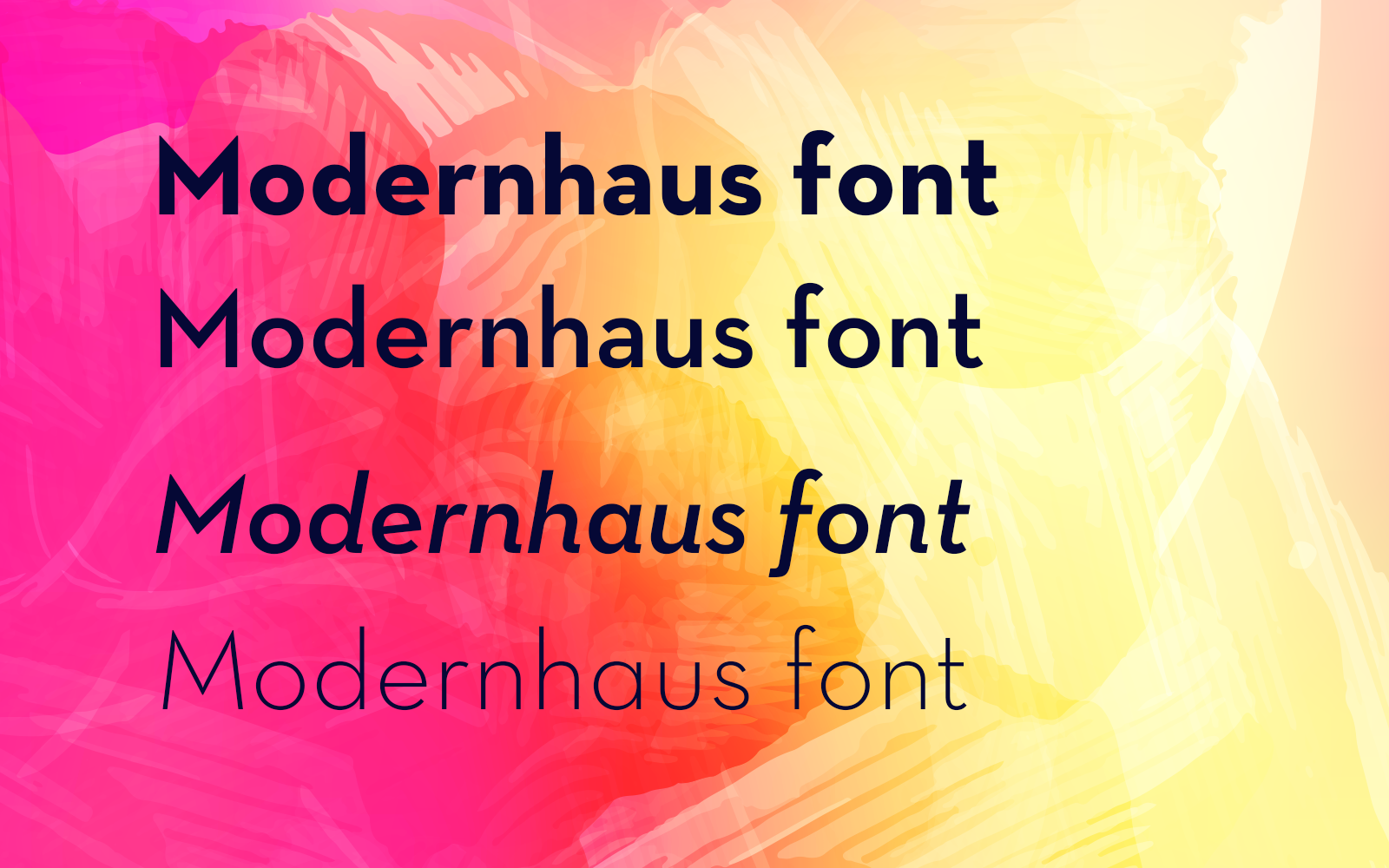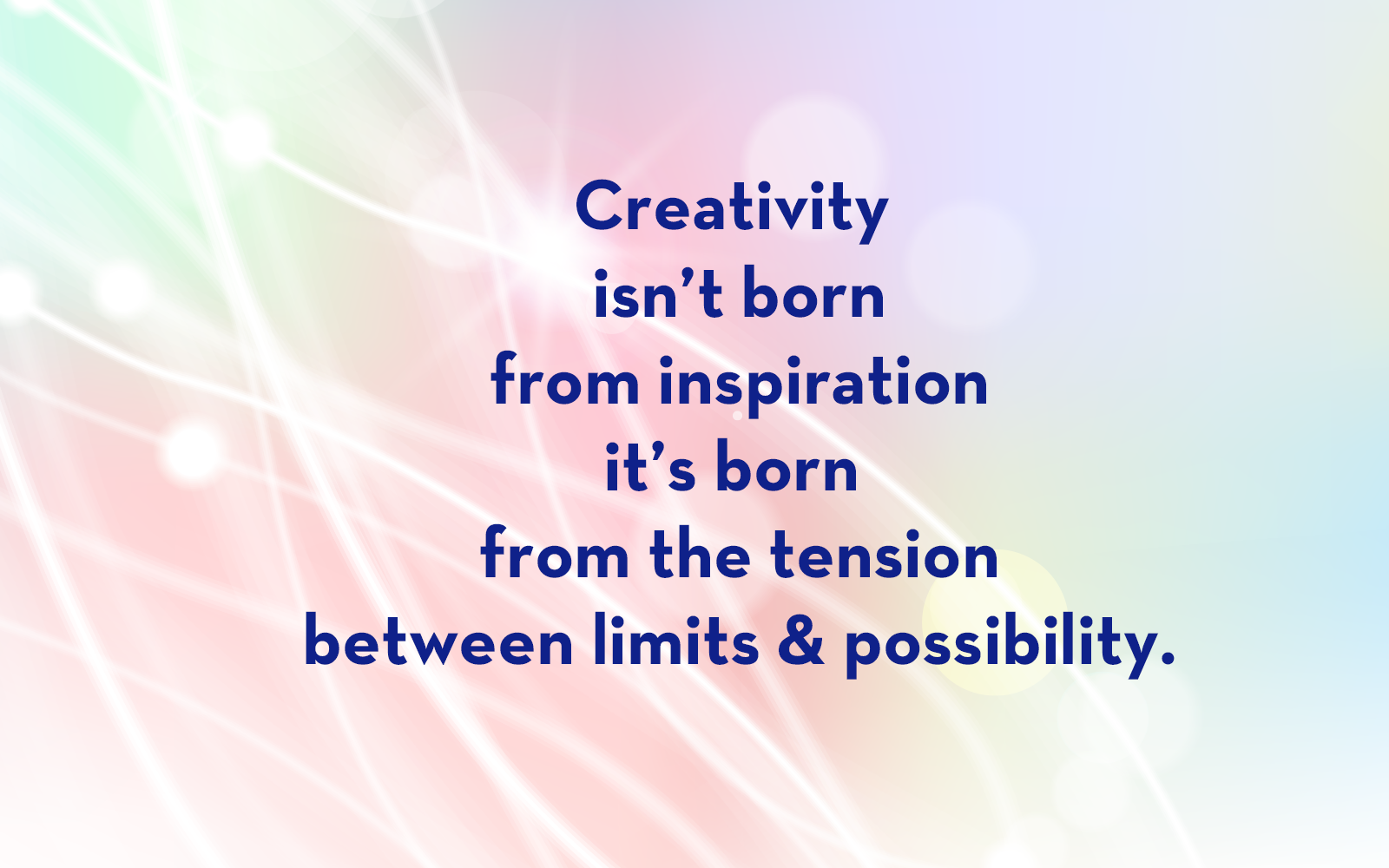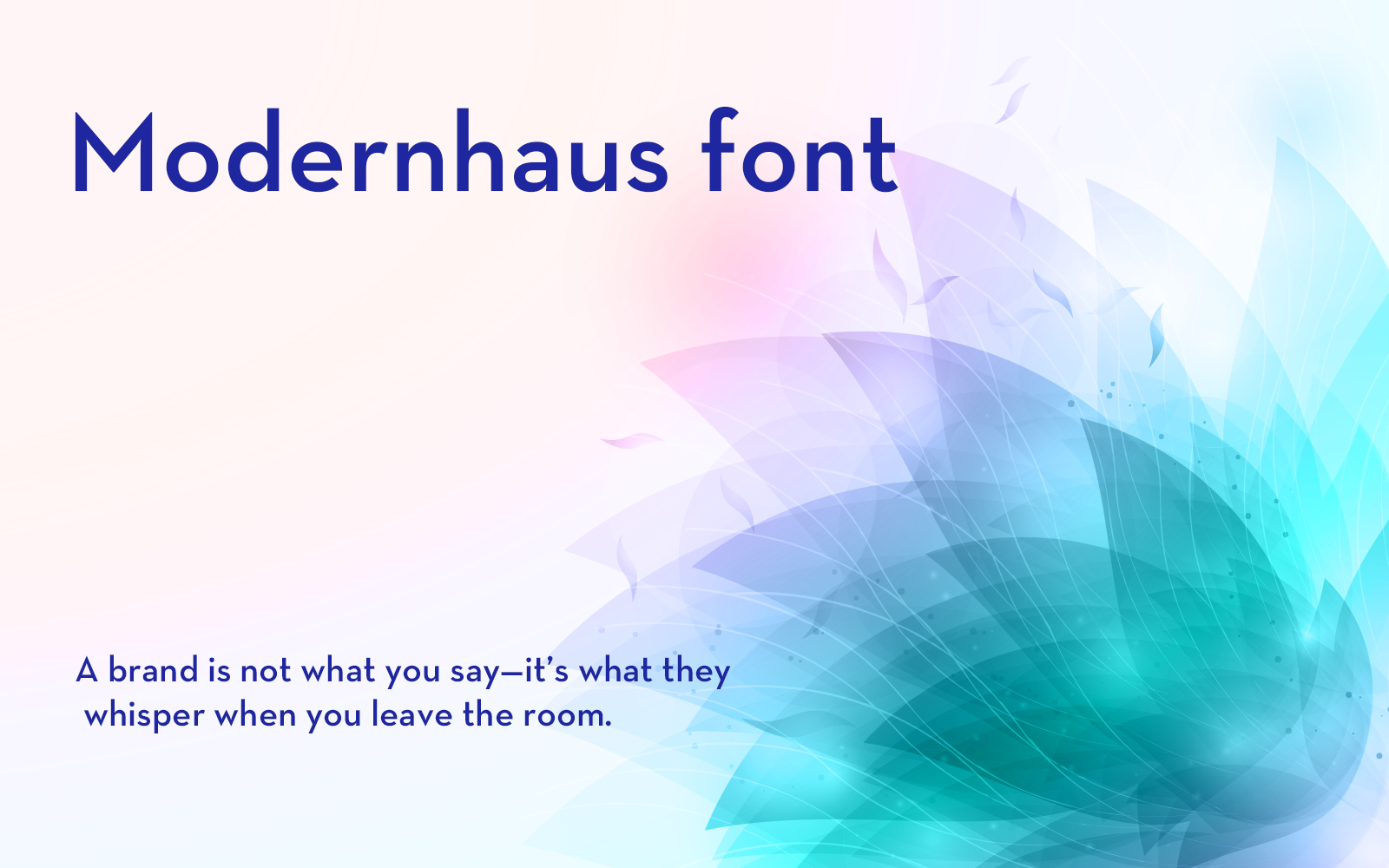
Discover Modernhaus — where geometry meets soul.
Crafted for visionary brands and timeless editorial designs.
Every letterform is built with precision, yet breathes with warmth.
From logos to headlines, it leaves a striking, confident impression.
Retro charm meets modern clarity in every curve and angle.
Upgrade your design voice — Modernhaus speaks elegance fluently.